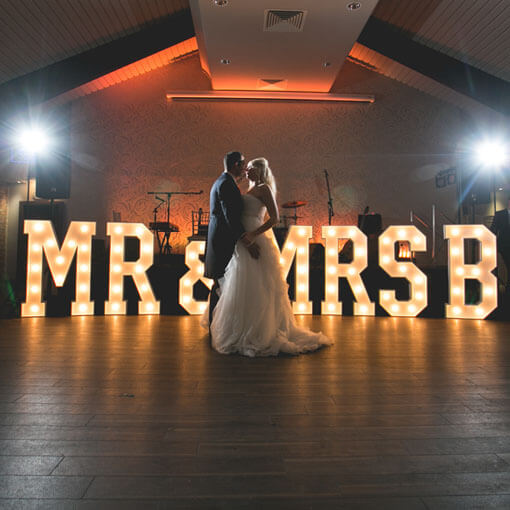
Desperately need to find out the font used in these wooden signs and the possible weight of the font if a medium or bold etc
With some condensing and a new /&, this might would be close: Arsenal-W Chufarofsky/a_CampusNr
Arsenal has a large number of variations on the Campus design…